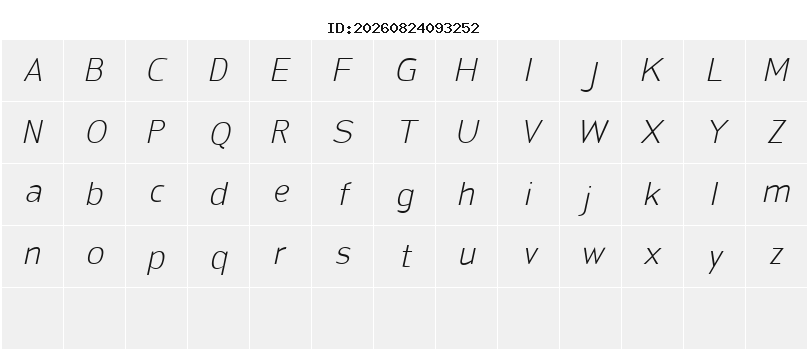
• Font Name: San Frediano
• Font Style: Light Italic
• Font ID: Monofonts: San Frediano Light Italic: 2014
• Full Font Name: San Frediano Light Italic
• PostScript Name: SanFrediano-LightItalic
• Designer: Andrea Cerboneschi for Monofonts
• Manufacturer: Monofonts
About San Frediano.ttf
San Frediano.ttf is a modern, elegant sans-serif font designed for ultimate readability and visual harmony. Perfect for branding, headlines, web design, and print materials.